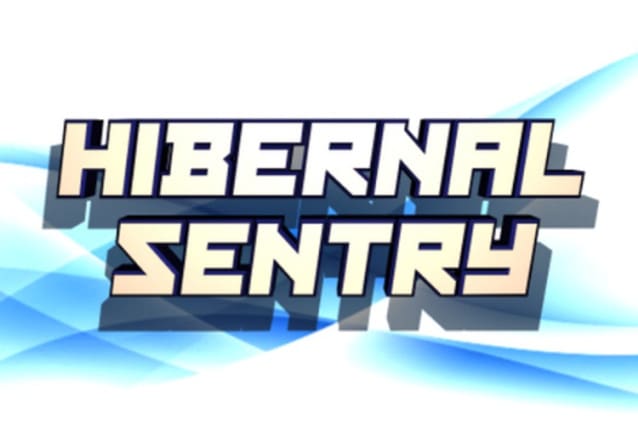
Hibernal Sentry Font
Hibernal Sentry Font, perfectly fit for branding, logo, wedding things, greeting cards, fashion, lookbook, marketing promotion, anytime you want to look fancy elegant but still casual.